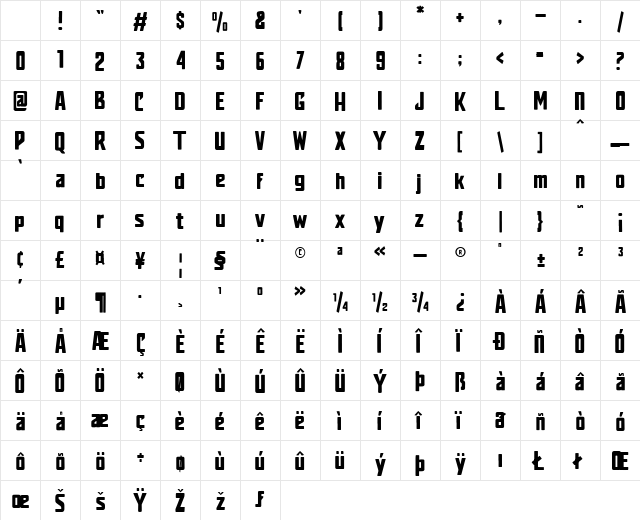
Complete Mountain and Nature Regular glyph index. Displaying only characters natively supported by Mountain and Nature Regular font.
Mountain and Nature is a composed and adaptable typeface that performs quietly and consistently across a wide range of design contexts.